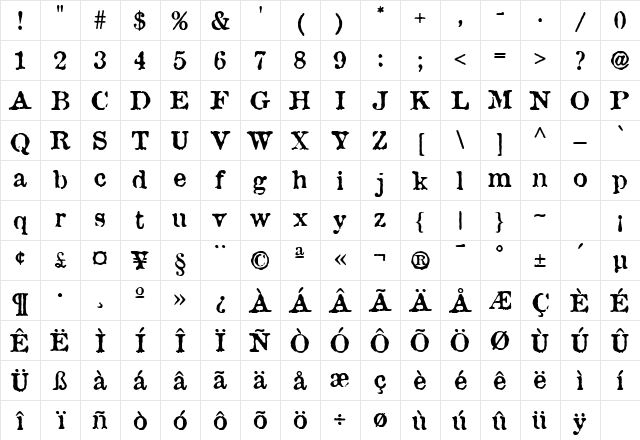
Antique Type Regular
Design Context for Antique Type
Antique Type wears its vintage influences proudly, with letterforms that recall mid-century signage, classic packaging, and nostalgia-driven design.
Font Pairing: Combine Antique Type with a simple slab or neutral sans - period-accurate companions reinforce the vintage feel without competing for attention.
Pro Tip: Lean into Antique Type's period character by pairing it with aged paper textures, muted colour palettes, and vintage illustration styles.